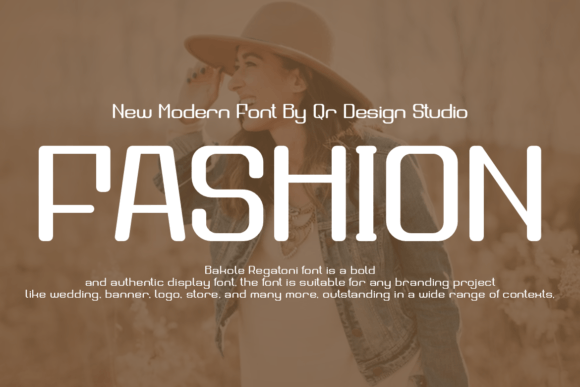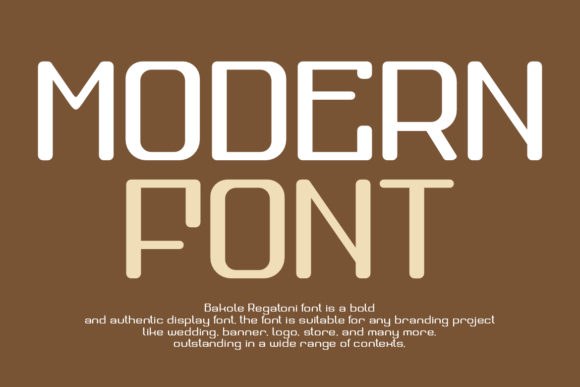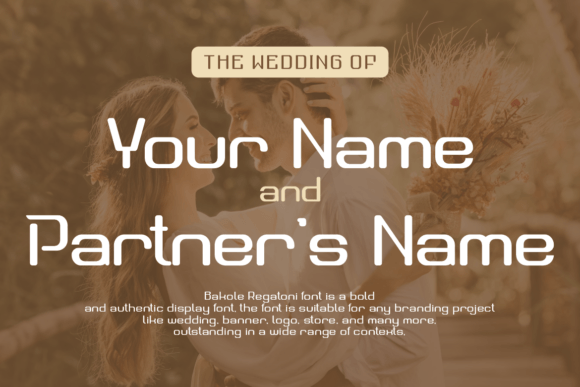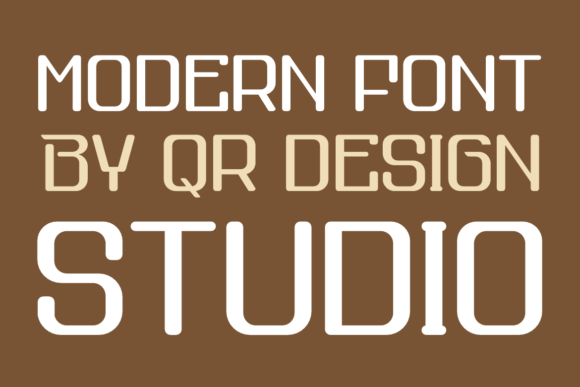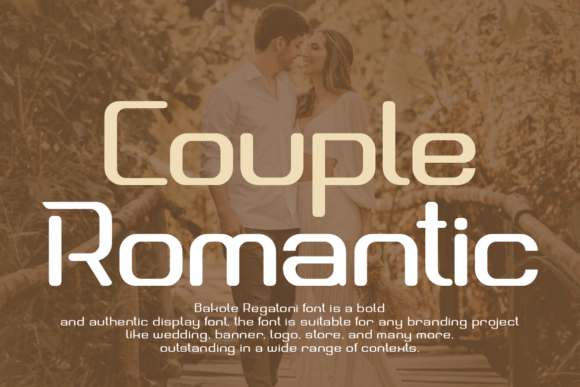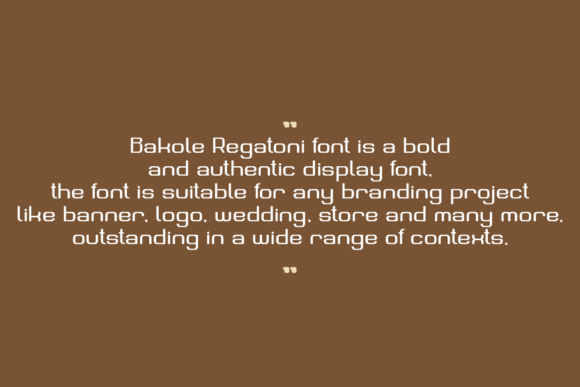
Bakole Regatoni Font: Elevate Your Designs with a Bold and Authentic Display Font
In the world of typography, a font can make or break a design. It’s the foundation upon which your creative vision is built, and choosing the right one can be a daunting task. If you’re on the hunt for a bold and authentic display font that can elevate your branding projects, look no further than Bakole Regatoni Font. This stunning font is perfect for designers and crafters looking to add a touch of sophistication and style to their work.
What is Bakole Regatoni Font?
Bakole Regatoni Font is a bold and authentic display font designed to make a statement. Its unique blend of modern and classic elements makes it suitable for a wide range of branding projects, from logos and weddings to fashion, flyers, social media, and more. Whether you’re a seasoned designer or a crafty DIY enthusiast, this font is sure to impress.
Key Features of Bakole Regatoni Font
- Bold and Authentic: Bakole Regatoni Font is a bold and authentic display font that’s perfect for making a statement.
- Versatile: This font is suitable for a wide range of branding projects, from logos and weddings to fashion, flyers, social media, and more.
- Easy to Read: Despite its bold nature, Bakole Regatoni Font is easy to read, making it perfect for use in a variety of contexts.
- High-Quality: This font is designed to deliver high-quality results, ensuring that your designs look professional and polished.
Why Choose Bakole Regatoni Font?
So, why should you choose Bakole Regatoni Font for your next design project? Here are just a few reasons:
- Unique Style: Bakole Regatoni Font has a unique style that’s sure to set your designs apart from the crowd.
Design Ideas Using Bakole Regatoni Font
Bakole Regatoni Font is perfect for a wide range of design projects. Here are a few ideas to get you started:
- Logos: Create a bold and memorable logo for your brand.
- Wedding Invitations: Design beautiful wedding invitations that set the tone for the big day.
- Fashion Branding: Elevate your fashion brand with a stylish and sophisticated font.
- Flyers: Create eye-catching flyers that grab attention.
- Social Media Graphics: Design engaging social media graphics that stand out.